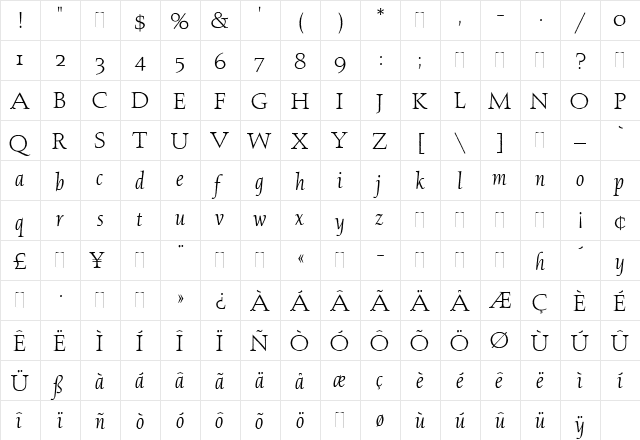
Aquinas Regular
Design Context for Aquinas Typeface
Aquinas is a composed and adaptable typeface that performs quietly and consistently across a wide range of design contexts.